15 Best Blackletter Fonts for Gaming Logos and Dark UI Design in 2026
Blackletter typography is back in a big way across gaming, esports branding, dark fantasy interfaces, and cyber-gothic UI systems. A few years ago, these fonts were mostly tied to metal album covers and tattoo culture. In 2026, they’re showing up everywhere from extraction shooters to RPG splash screens and esports merch drops.
The reason is simple: modern blackletter fonts are no longer stuck in unreadable medieval styling. Designers are blending gothic structure with cleaner geometry, pixel-inspired edges, futuristic cuts, and gaming-focused readability.
After reviewing dozens of modern releases and font specimens, these are the blackletter fonts that actually work for gaming logos, dark UI overlays, Twitch branding, fantasy titles, and cinematic interfaces. Many of the fonts below were specifically marketed for gaming, esports, or dark branding projects.
15 Best Blackletter Fonts for Gaming Logos and Dark UI Design
1. Crownspire
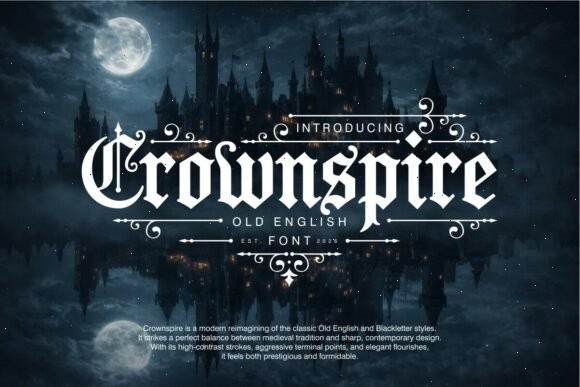
Crownspire feels like a premium AAA fantasy title font.
It mixes traditional Old English structure with cleaner modern cuts and sharp terminal points. The biggest advantage is how readable it stays even with decorative flourishes. For dark UI headers and cinematic title cards, this one stands out immediately.
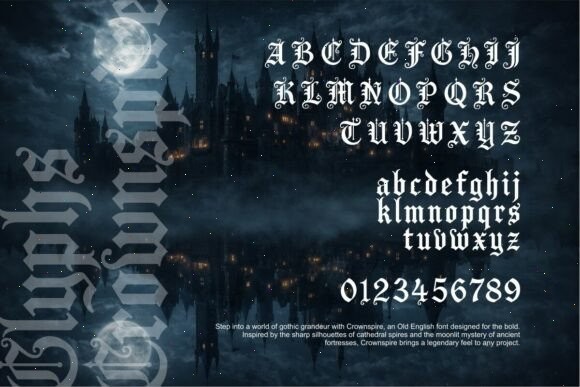
The specimen specifically positions it for gaming titles, apparel design, and poster art.
What works especially well:
- fantasy RPG logos
- dark launcher screens
- gothic esports branding
- medieval action games
Its spacing is noticeably more modern than traditional blackletter fonts, which helps a lot inside UI layouts.
2. Ghostech
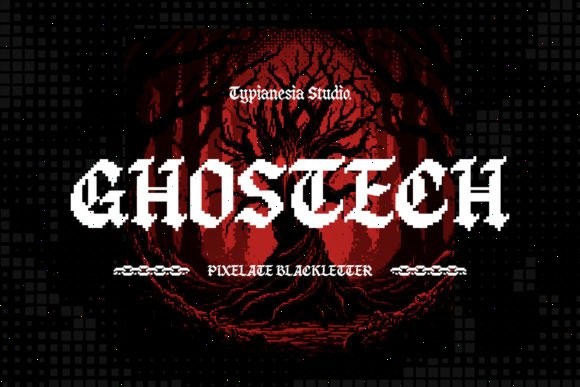
Ghostech is one of the most interesting hybrid fonts in this list.
Instead of leaning fully medieval, it merges blackletter structure with pixel-inspired styling and digital edges.
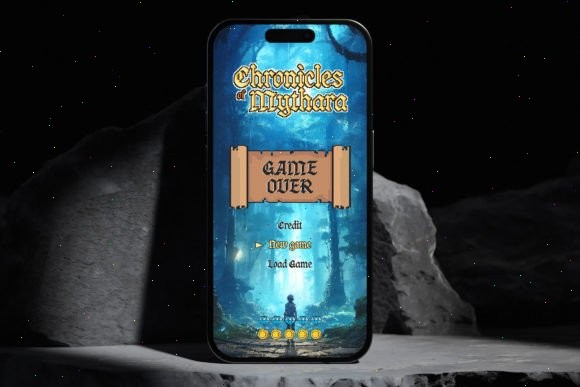
That makes it unusually good for:
- cyber-gothic interfaces
- retro FPS branding
- pixel horror games
- dark synthwave visuals
A lot of blackletter fonts feel too historical for futuristic games. Ghostech avoids that problem completely.
3. Qindret
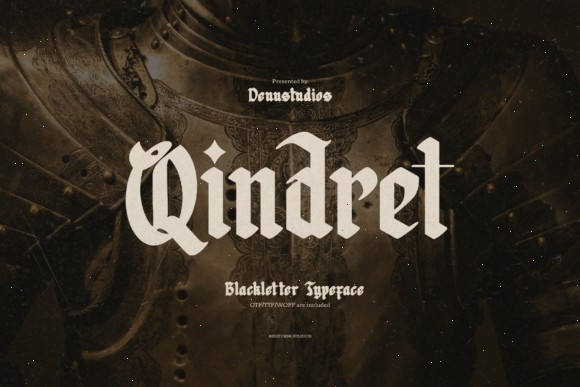
Qindret works best when you want sophistication instead of raw aggression.
The font keeps strong medieval influence but has cleaner contrast and excellent readability. The capital characters are particularly strong for logos and faction branding.
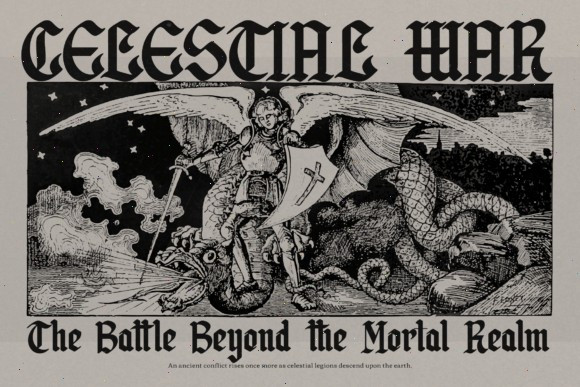
Best use cases:
- fantasy MMORPG branding
- premium game merch
- RPG loading screens
- lore-heavy interfaces
It feels more “dark kingdom” than “metal band.”
4. Dark Gewor
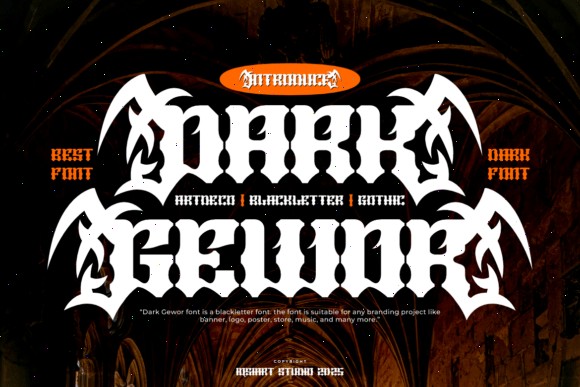
Dark Gewor is chaotic in the best possible way.
It combines blackletter structure with art-deco sharpness and condensed proportions.
This font immediately feels aggressive and competitive.
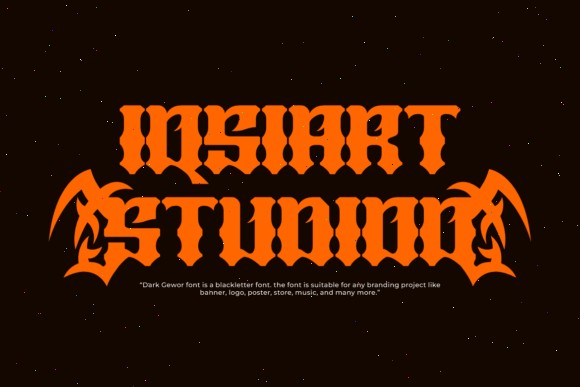
Ideal for:
- esports team logos
- combat arena games
- racing games
- extreme sports branding
The dense composition gives it strong thumbnail presence, which matters for Twitch and YouTube visibility.
5. Smooth Variation
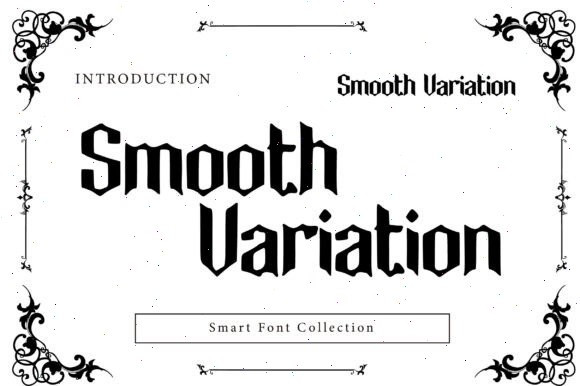
Smooth Variation modernizes blackletter without losing its gothic identity. The cleaner geometry and streamlined cuts make it surprisingly versatile.
This is probably one of the easiest fonts here to integrate into real UI systems.
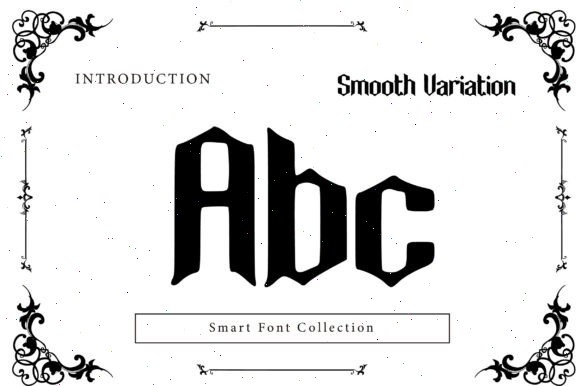
Good for:
- gaming dashboards
- streamer overlays
- tech-heavy dark interfaces
- sports gaming brands
It feels closer to modern esports branding than medieval fantasy.
6. Badless
Badless is pure aggression.
The thorn-like terminals and heavy black-metal influence make it perfect for horror shooters and brutalist gaming aesthetics.
Where it shines:
- zombie games
- horror branding
- PvP arena titles
- hardcore esports merch
This font looks best when paired with distressed textures and high-contrast monochrome palettes.
7. Strong Master
Strong Master has a cleaner fantasy style with ornamental diamond cutouts and balanced symmetry.
Compared to more chaotic fonts, this one feels structured and heroic.
Great for:
- fantasy strategy games
- medieval RPGs
- cinematic game titles
- collectible card games
It also scales well for UI buttons and menu headers.
8. Lawlliet
Lawlliet leans heavily into classic gothic drama.
The ornate strokes and sharp medieval angles feel extremely close to traditional manuscript typography while still staying usable digitally.
Best for:
- dark fantasy games
- occult-themed interfaces
- gothic adventure titles
- metal-inspired branding
This one benefits from larger spacing and generous padding in UI layouts.
9. Yeremia
Yeremia combines aggressive sharpness with a regal aesthetic.
u003ca href=u0022https://fontiverse.com/?p=8724u0026amp;preview=true#15-alenikh-sportsu0022u003eAlenikh Sportsu003c/au003e and u003ca href=u0022https://fontiverse.com/?p=8724u0026amp;preview=true#4-dark-geworu0022u003eDark Geworu003c/au003e work especially well for esports logos because they have aggressive shapes and strong visibility at smaller sizes.
How do you make blackletter fonts easier to read?
Use larger spacing, avoid overly decorative variants, pair them with clean sans-serif fonts, and reserve them for titles instead of paragraphs.